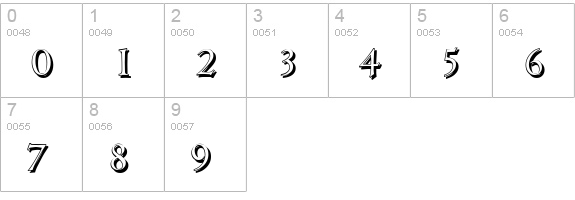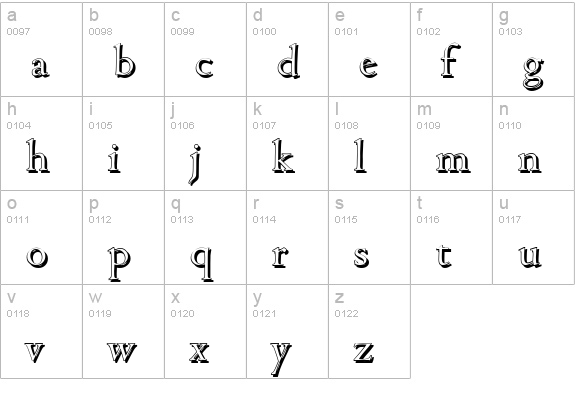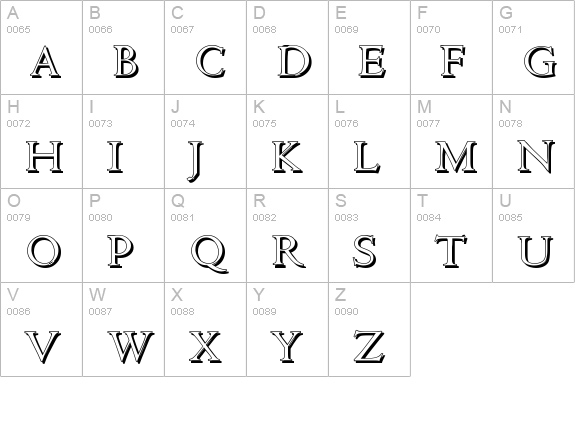
CambridgeShadow-Light-Regular Font Details
CambridgeShadow-Light-Regular is a refined, elegant variant in the CambridgeShadow typeface family \xE2\x80\x94 well suited to elegant body text, refined sub-headings, and luxury branding.
CambridgeShadow-Light-Regular font is a stunning display typeface that exudes elegance and sophistication. Its graceful letterforms and intricate shadow details make it perfect for adding a touch of class to your design projects. This versatile font is ideal for creating eye-catching headlines, posters, invitations, and more. What sets CambridgeShadow-Light-Regular font apart is not only its timeless design but also the fact that it is completely free to download. You can easily access this beautiful font at FontsMarket.com, where you can explore its full potential and use it in your creative endeavors without any cost. With its perfect balance of shadow and light, CambridgeShadow-Light-Regular font brings a sense of depth and dimension to your text, making it stand out and capture attention. Whether you're working on a branding project, a website design, or any other creative venture, this font is sure to elevate your work and leave a lasting impression. Download CambridgeShadow-Light-Regular font today and let your designs shine with sophistication and style.